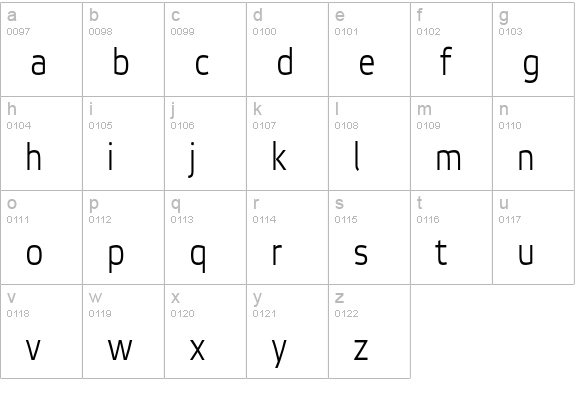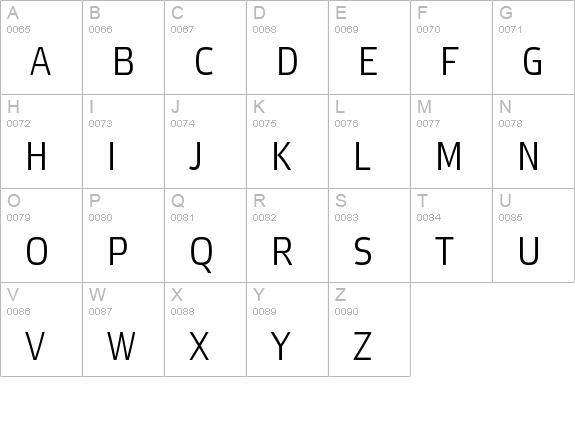
Etelka Narrow Light Pro Font Details
Etelka Narrow Light Pro is a refined, elegant, condensed-width variant in the Etelka typeface family \xE2\x80\x94 well suited to elegant body text, refined sub-headings, and luxury branding.
Etelka Narrow Light Pro is a sleek and elegant typeface that exudes sophistication and modernity. With its slender letterforms and delicate strokes, this font is perfect for conveying a sense of refinement and style in your designs. Whether you're working on branding materials, editorial projects, or web designs, Etelka Narrow Light Pro will add a touch of class to your work. The best part is that Etelka Narrow Light Pro is available for free download at FontsMarket.com. This means you can easily access this high-quality font without any cost, making it a valuable asset for your creative projects. Don't miss out on the opportunity to elevate your designs with the timeless beauty of Etelka Narrow Light Pro. Download it today and see the difference it can make in your work.